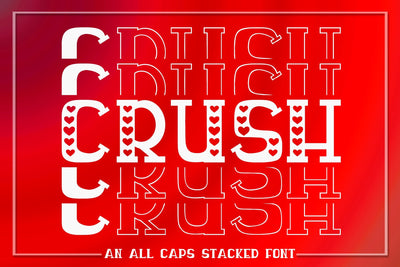
Crush - An All Caps Stacked Font - Solid & Outline
Crush is an All Caps Stacked/Mirrored Font in Solid & Outline options as two font files to help save you time in creating stacked designs!
Only includes Letters A-Z and 0-9 with and without Hearts - All characters included are shown in pictures above.